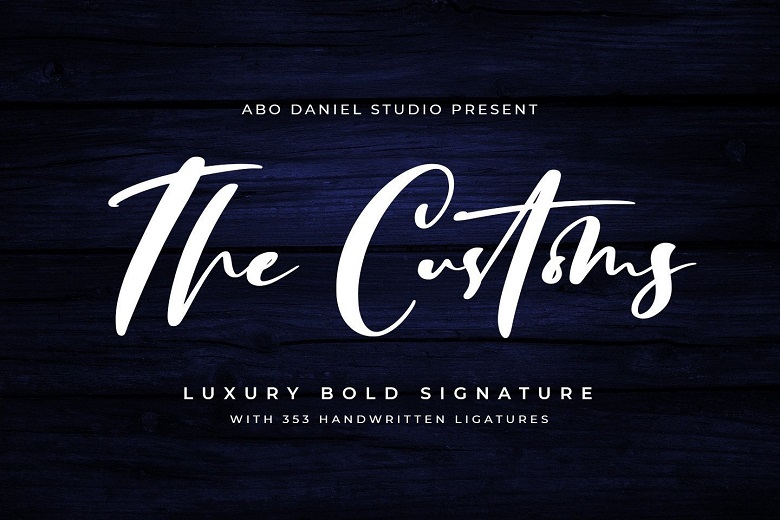
The Customs Font
The Customs is a luxuriously bold handwritten font perfect for professional projects like logos, branding, business cards, flyers, posters, photography, t-shirts, watermarks and anything that needs an elegant touch.
The Customs Handwritten Script Font